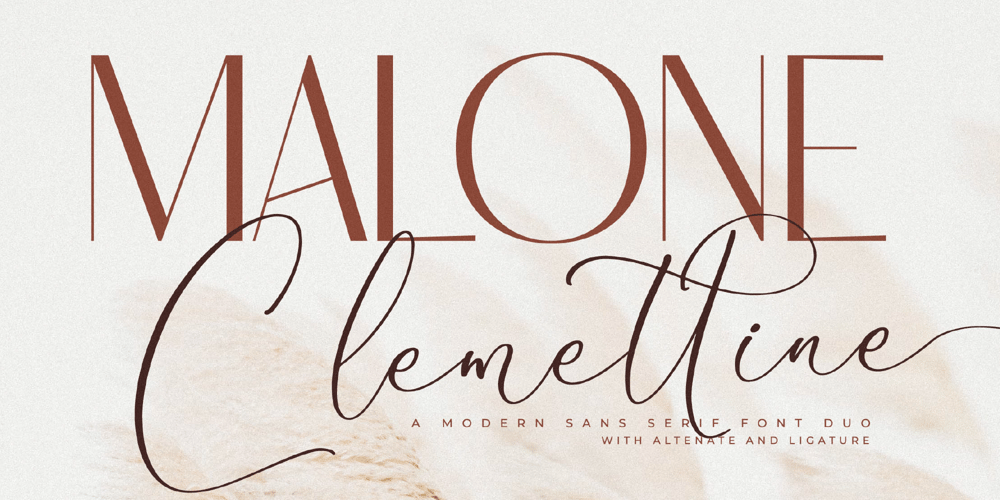
Malone Clemettine Script
Malone Clemettine Script font
Malone Clemettine Script Font Family was designed by Heru Utama Putra and published by Letterena Studios. Malone Clemettine Script contains 2 styles and family package options. A serif and script typeface that has own unique style & modern look.This typeface is perfect for an elegant & luxury logo, book or movie title design, fashion brand, magazine, clothes, lettering, quotes, and so much more.